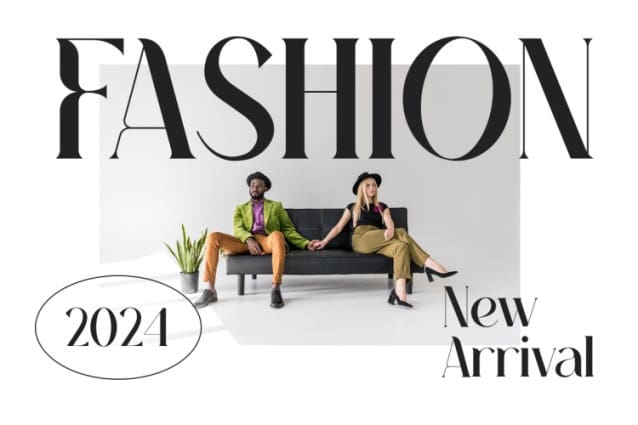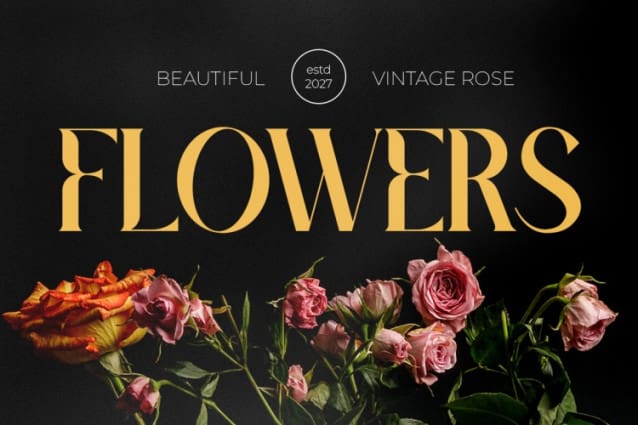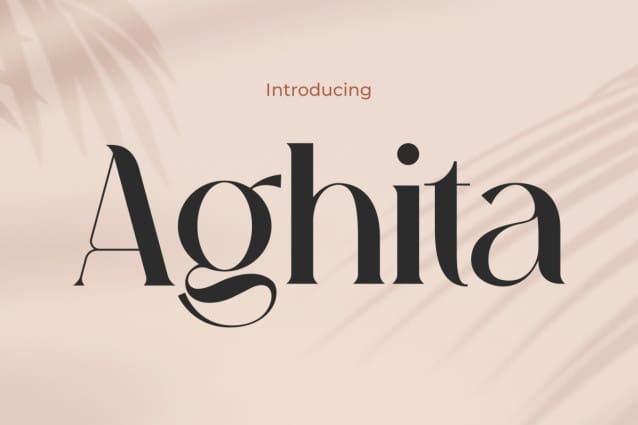
Aghita Font
Aghita Font epitomizes elegance and luxury in the realm of graphic design. Meticulously crafted to exude graceful charm, each letter in this font is sculpted with captivating detail, creating an unparalleled aesthetic. With a soft yet firm touch, Aghita Font blends timeless elegance, making it ideal for fashion design, magazine layouts, or luxurious promotional materials. From haute couture brochures to the latest collection catalogs, AghitaFont adds an unmatched touch of class and style.
Upon first glance, the feminine aura emanating from every line and curve of Aghita Font is captivating. Designed with delicacy and precision, this font not only portrays sophistication but also presents an undeniable modern essence. Inspired by trendy fashion styles, AghitaFont merges classic elegance with contemporary flair, creating a mesmerizing visual harmony. With its unparalleled allure, Aghita Font is the perfect choice for design projects seeking a luxurious, elegant, and stylish impression.